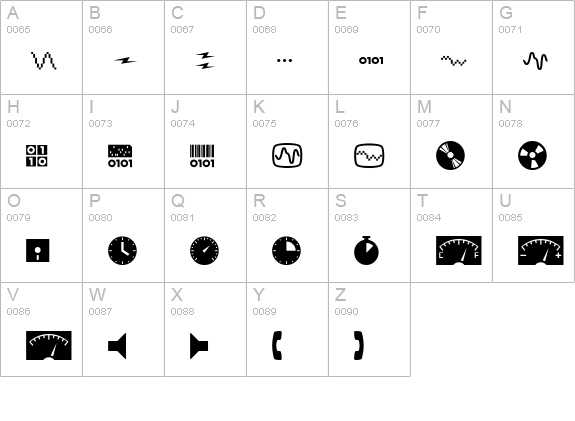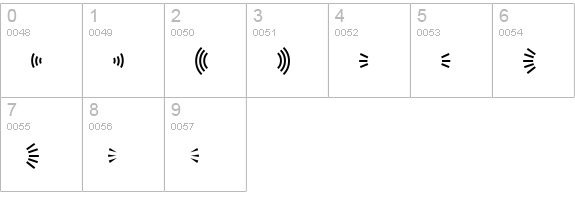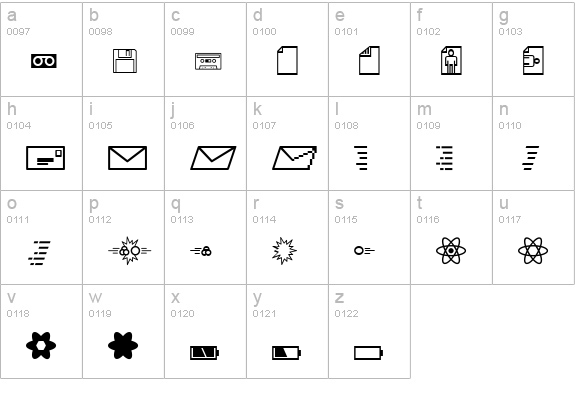
Mini Pics Digidings Font Details
Mini Pics Digidings is a whimsical and versatile font that is perfect for adding a touch of fun and creativity to your designs. This unique font features a collection of playful and quirky symbols and icons that are sure to catch the eye of your audience. Whether you are working on a project for a children's book, a greeting card, or a social media post, Mini Pics Digidings has got you covered with its charming and distinctive characters. The best part about Mini Pics Digidings is that it is completely free! Yes, you read that right - this delightful font is freely available to download at FontsMarket.com. So why wait? Add a dash of whimsy to your projects today with Mini Pics Digidings and let your creativity shine!